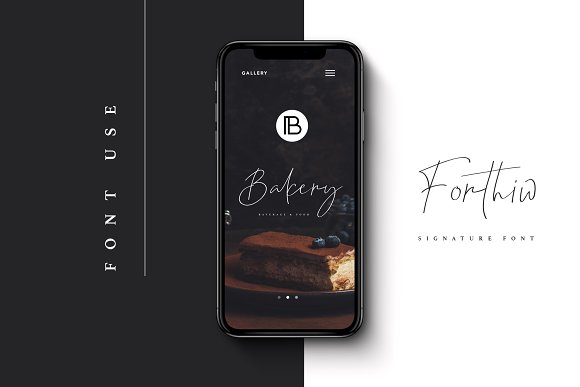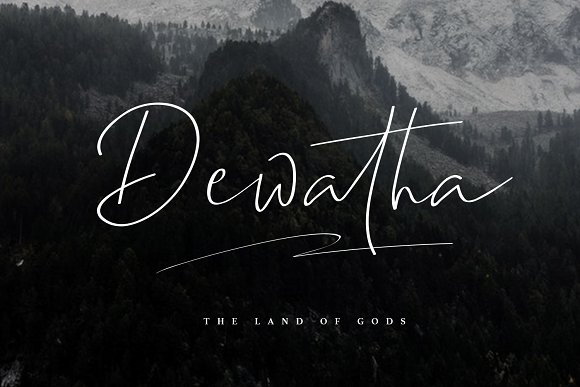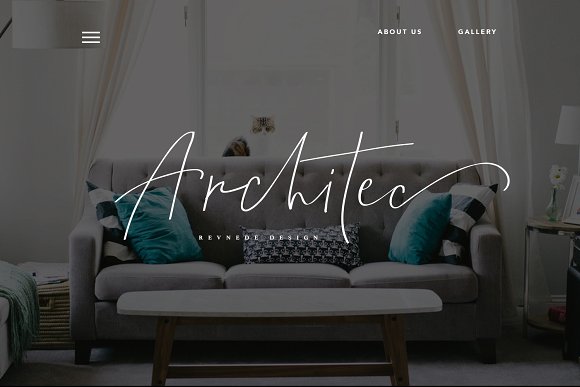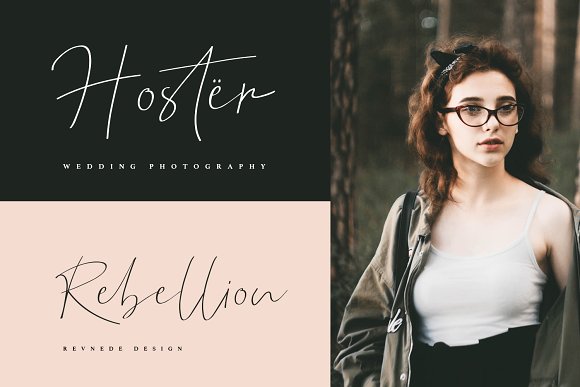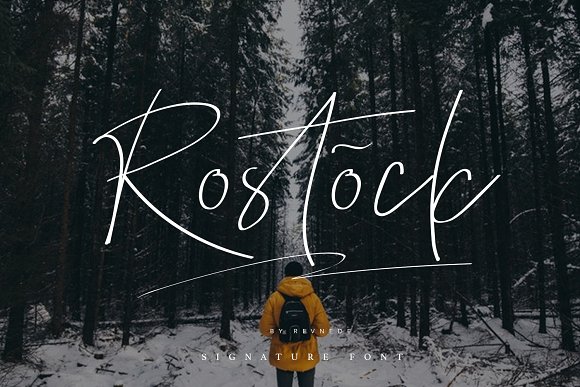
Rostock Script Font
Introducing the Rostock is, a classy, contemporary pair of script . With a stylish , expressive script companion, rostock offers beautiful typographic harmony for a diversity of design projects,
This is perfect for branding. . You won’t get cute, whimsical, funny logos, social media posts, advertisements & product designs. with this font.
font contains following ligatures:
ab ah ak al at att cb ch cl ck ct  eb eh ek el et la mb mh mk ml mt nb nh nl nk nt sb sh sk sl st
Fourthiw also includes full set of uppercase and lowercase letters, multilingual symbols, numerals, punctuation.